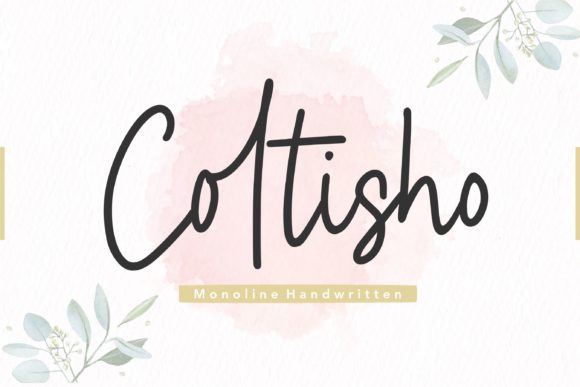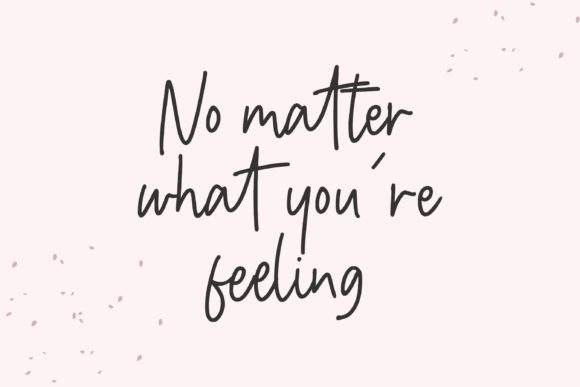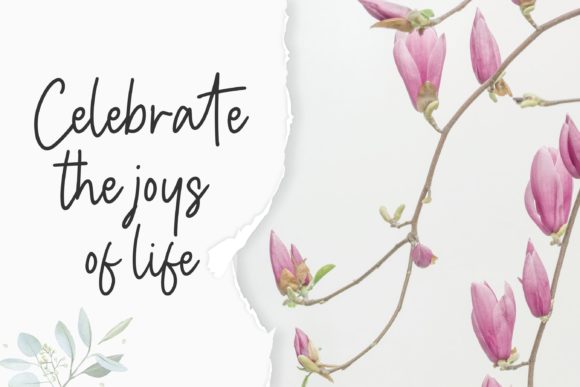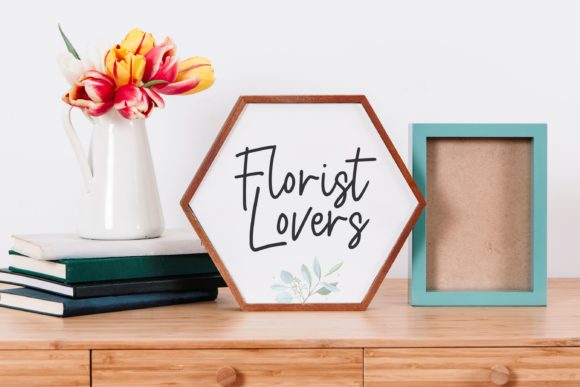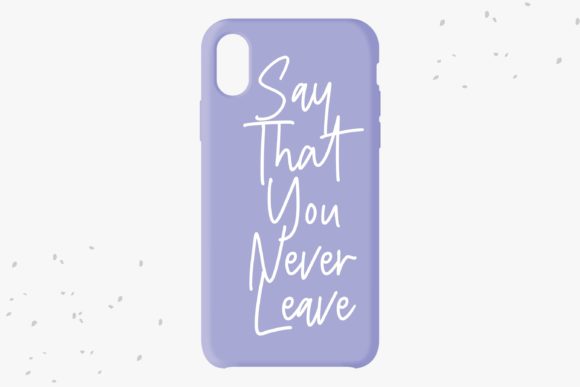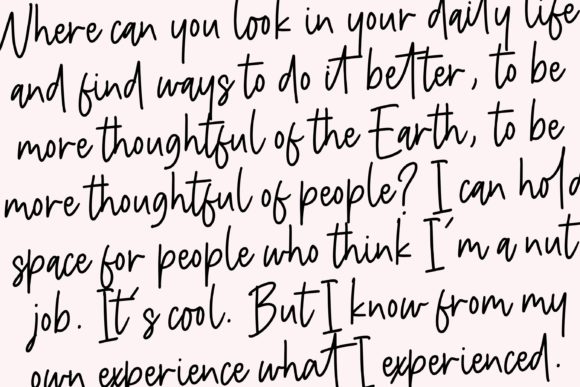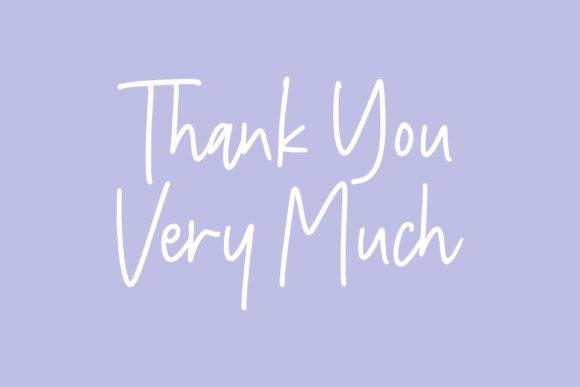
Coltisho Font
About Coltisho Font
Coltisho is a magical and unique handwritten font. Its sweet and relaxed style makes it incredibly versatile. Use it to elevate each of your designs.